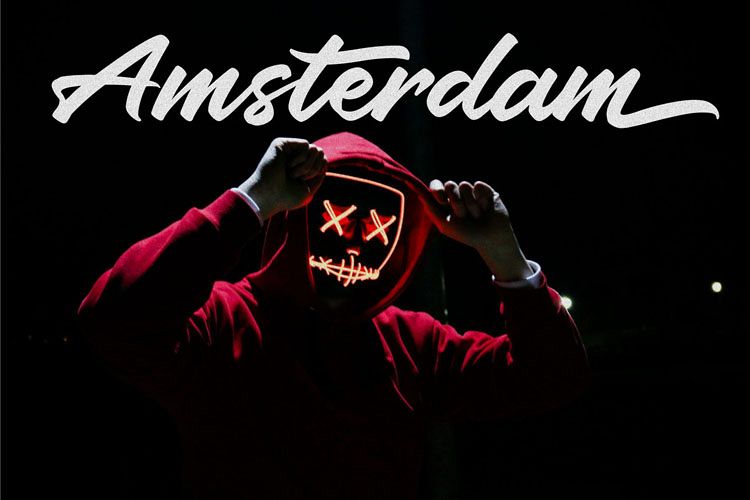
Brigan
Brigan with modes and there are every shape of clean letters. I make with of each curve's touch.
• Basic Latin A-Z and a-z
• Symbols
• Stylistic Set